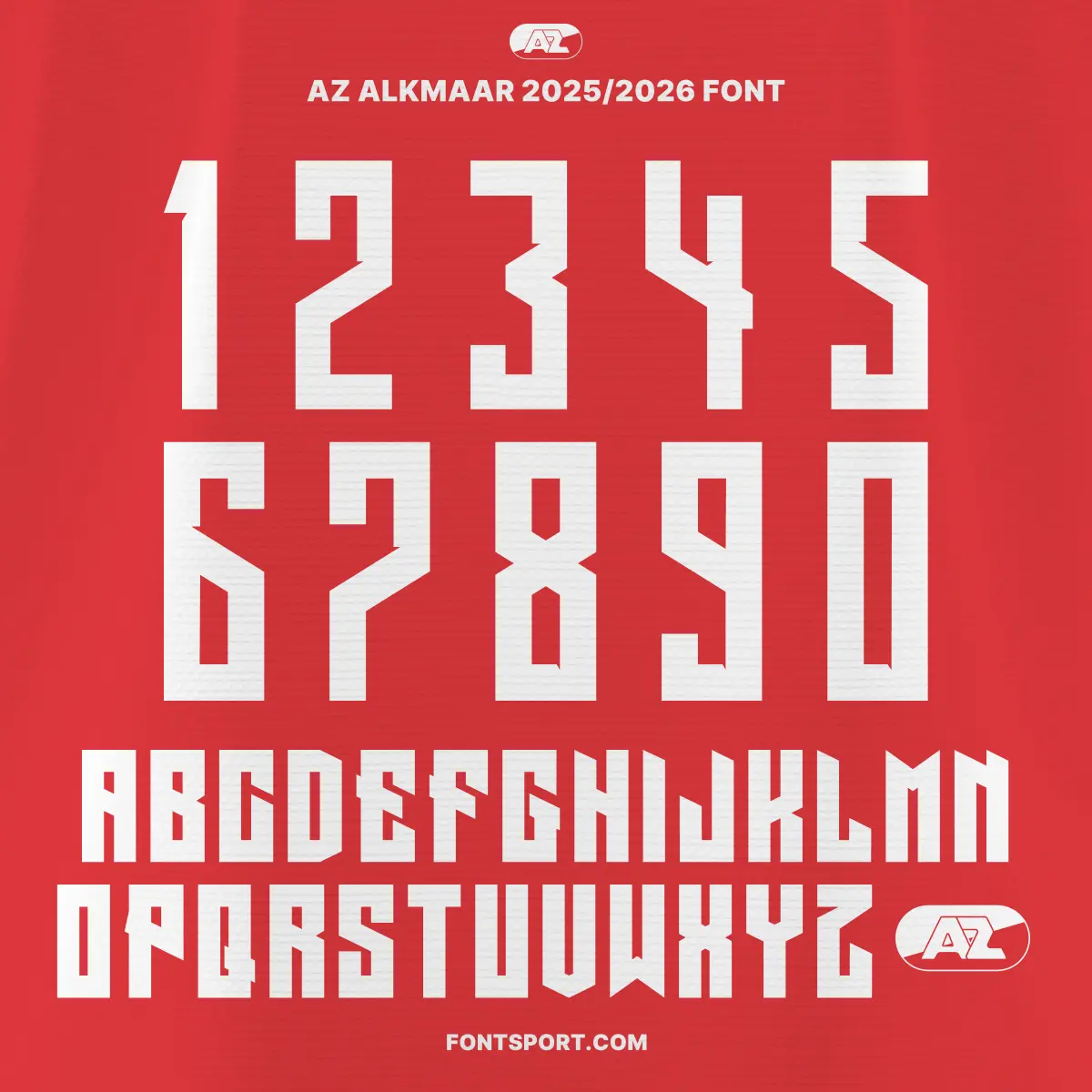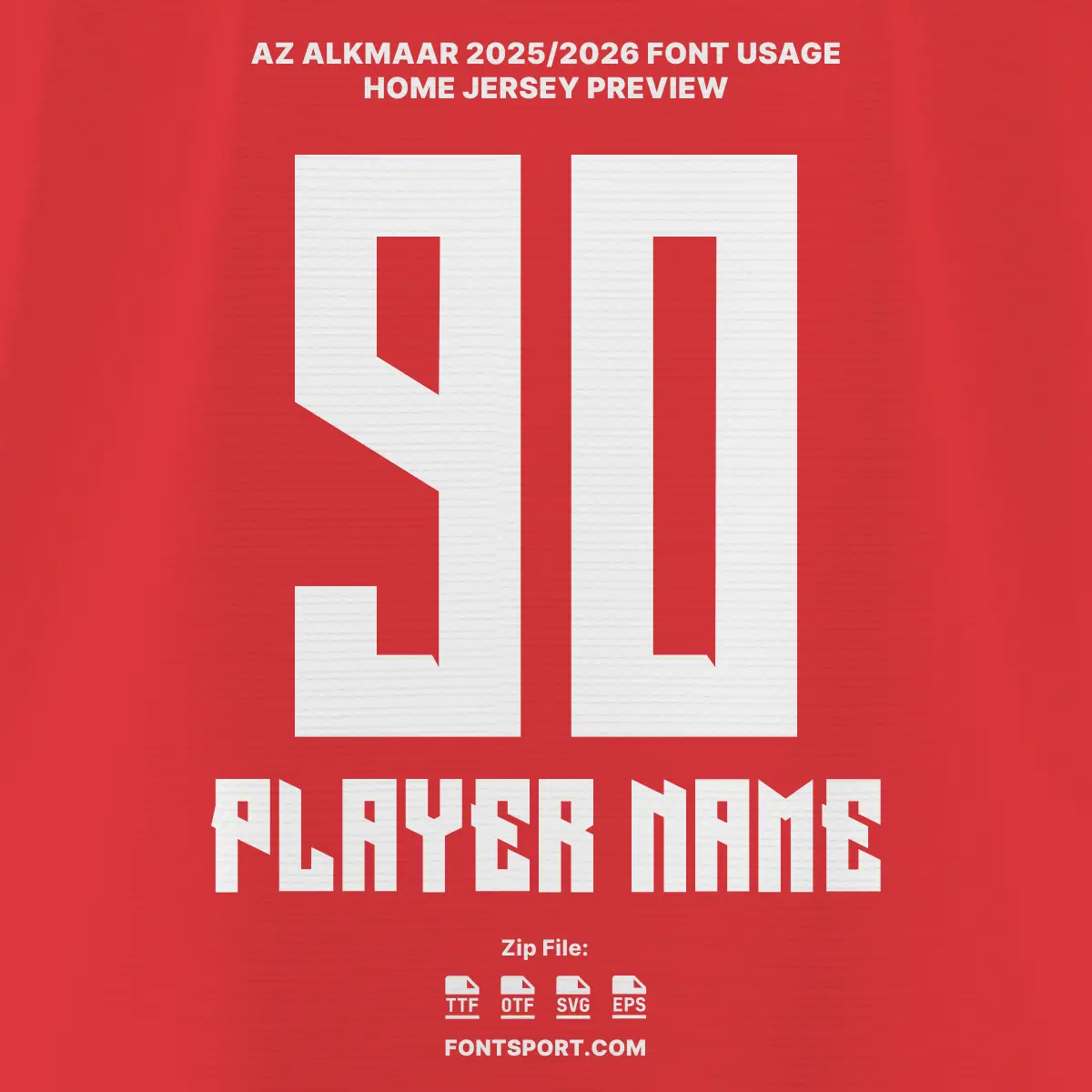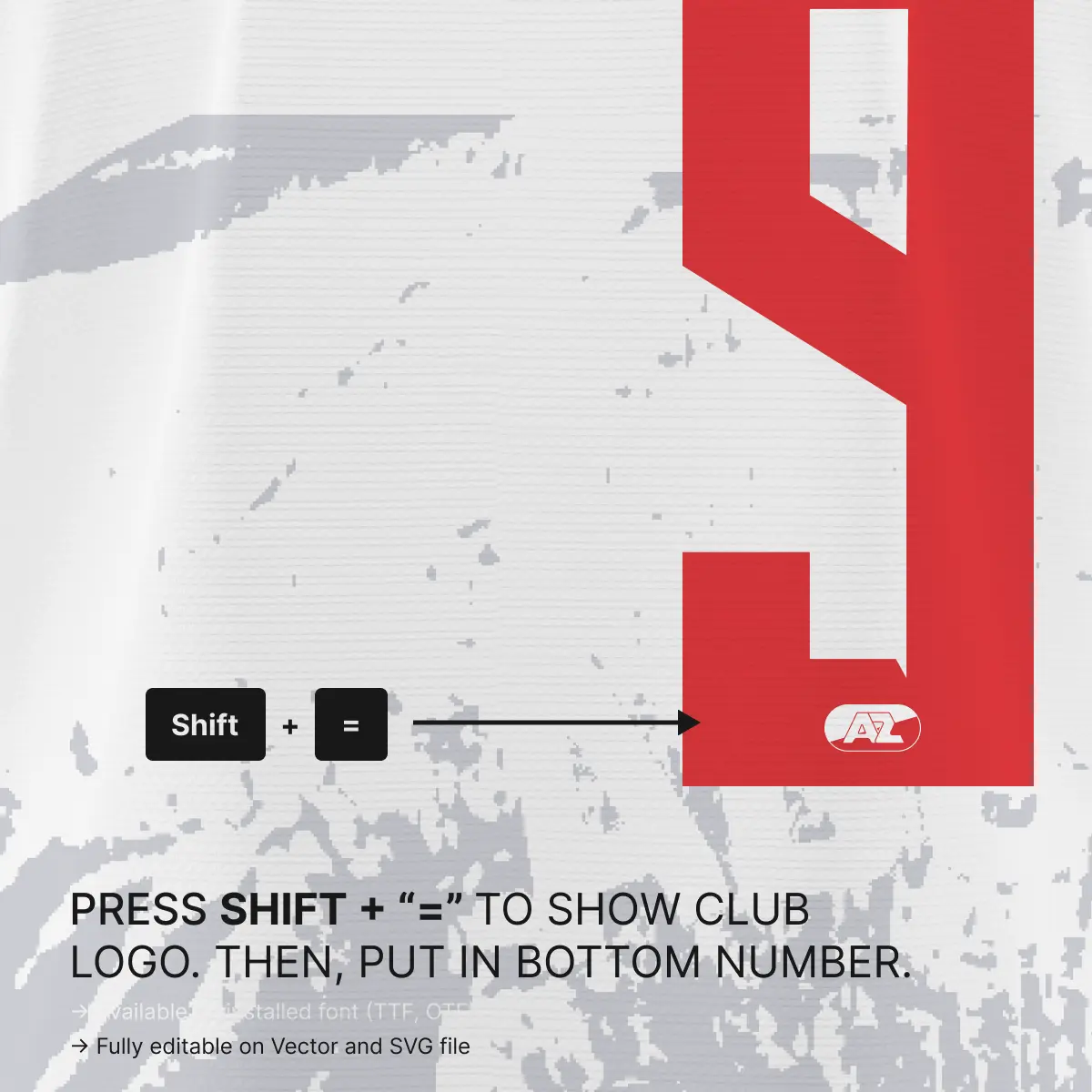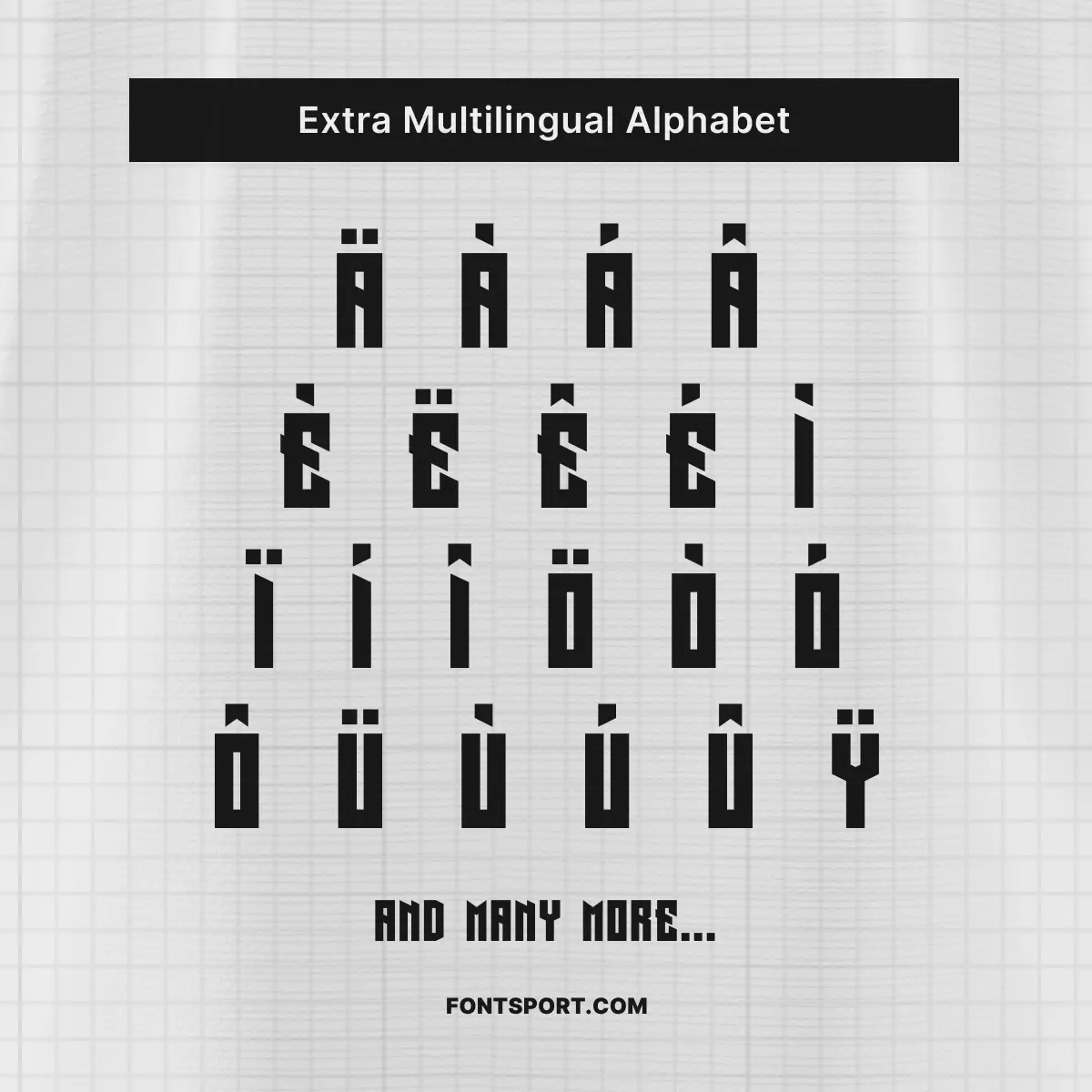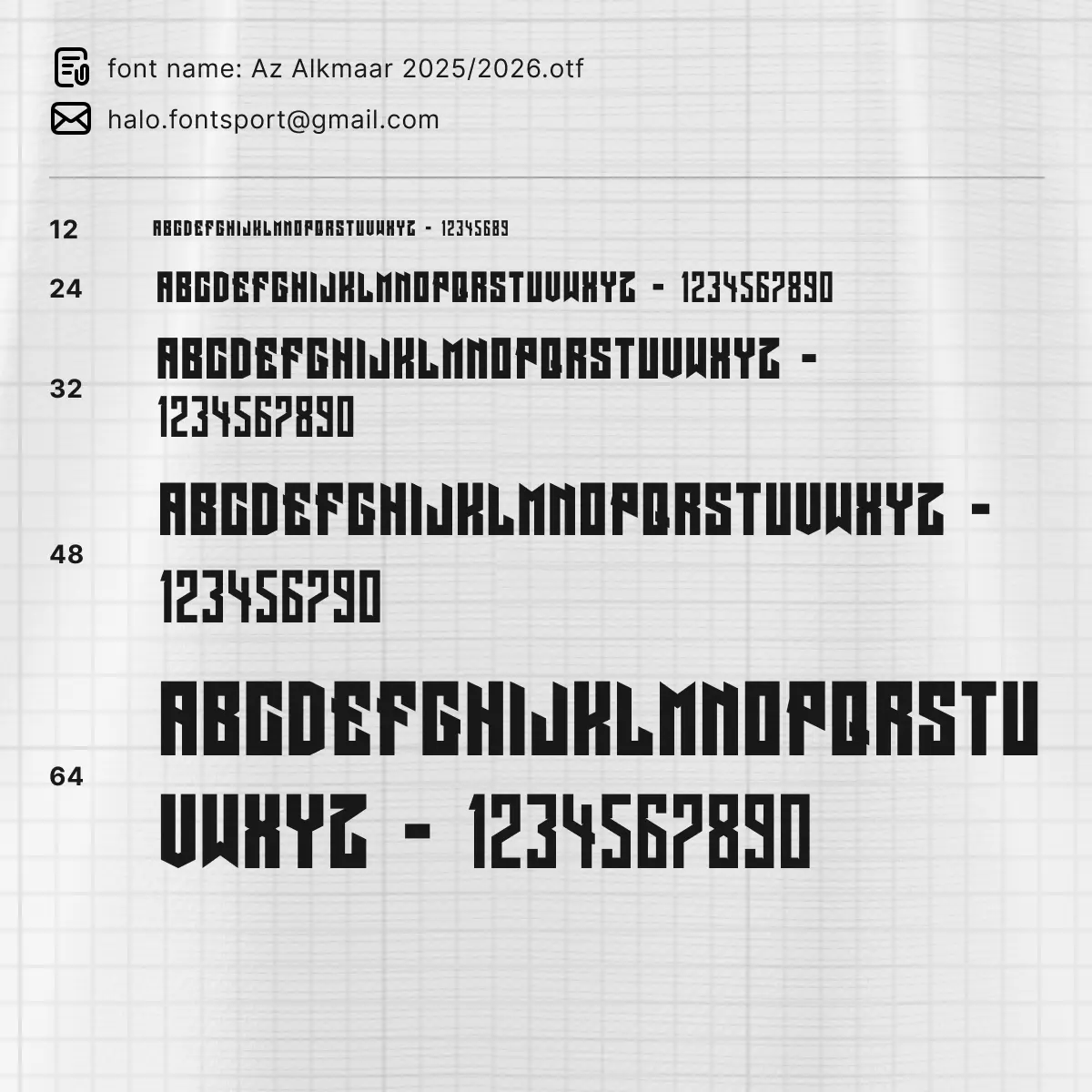
AZ Alkmaar Spirit to Your Designs
Celebrate the 2025/2026 Eredivisie season with the AZ Alkmaar Font Kit, inspired by the typography featured on the club’s home and away kits. This football font is perfect for fans, designers, and businesses who want to bring the professional matchday look into their creative projects. Designed for clarity and style, it’s suitable for both print and digital media.
What You’ll Get in the AZ Alkmaar 2025/2026 Font Kit
• ✅ Full A–Z uppercase letters & 0–9 numbers
This font for jersey can be used for poster designs, merchandise branding, wrapping paper, jersey mockups, and various sport-related graphics.
Why This Font Kit is Perfect for Your Projects
Crafted with sport font standards in mind, the AZ Alkmaar Jersey Font ensures high readability and impact, whether applied to fabric, posters, or digital platforms. The vector version allows you to scale the design without losing sharpness, making it versatile for various creative needs.
Az Alkmaar 2025/2026 Eredivisie font full alphabet and numbers preview in bold black outline on red background – includes multilingual characters and official AZ Alkmaar.
AZ Alkmaar 2025/2026 Font Kit